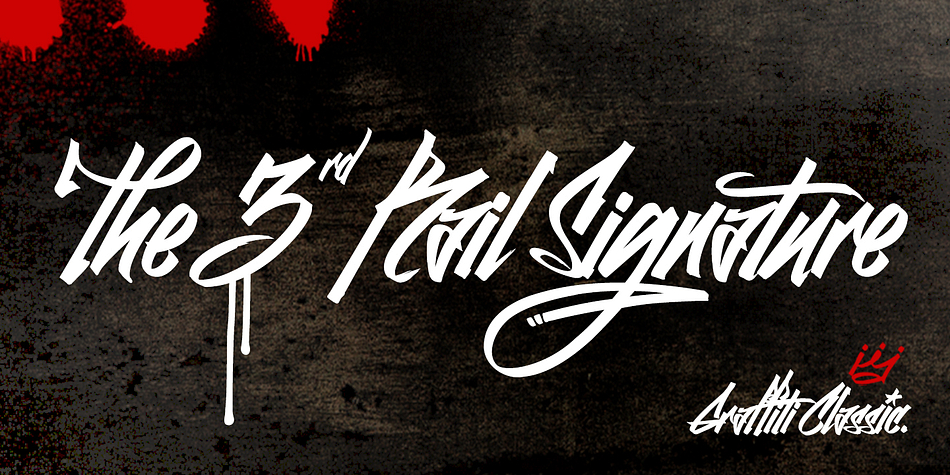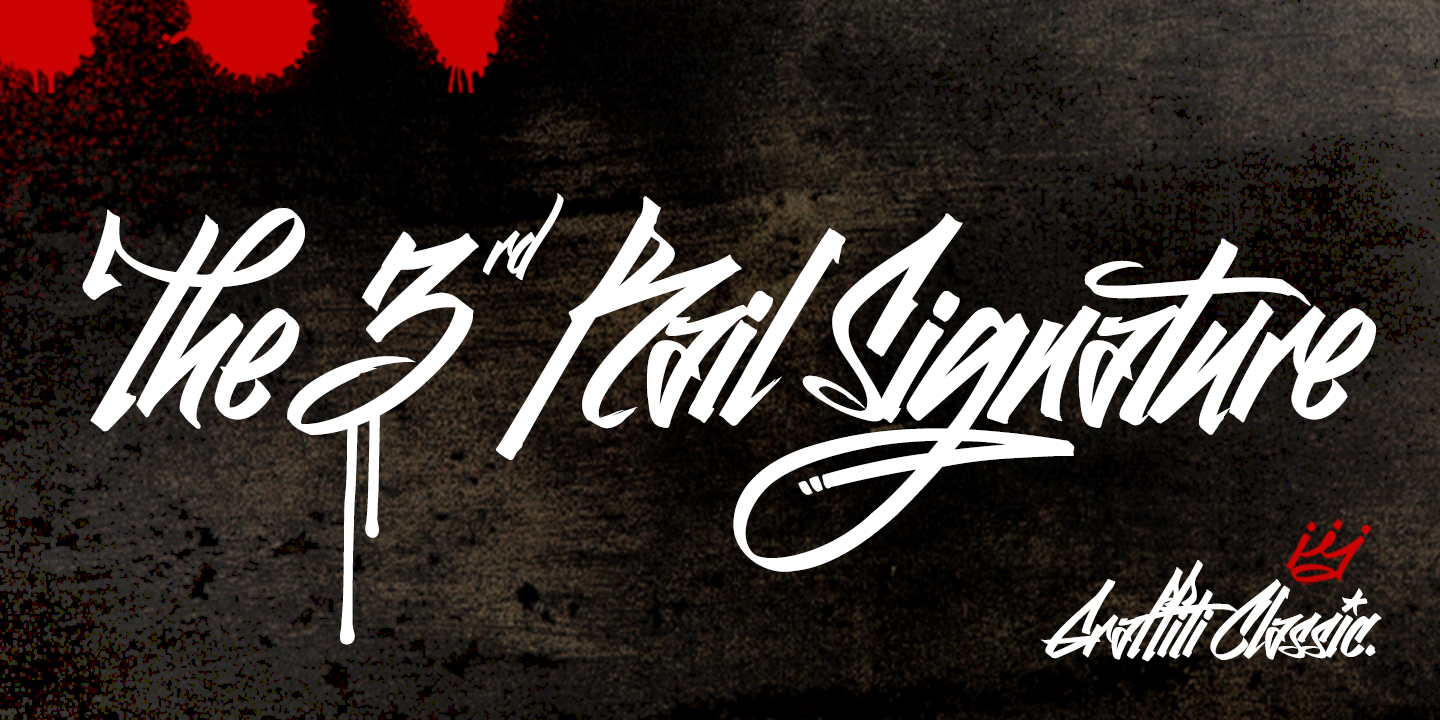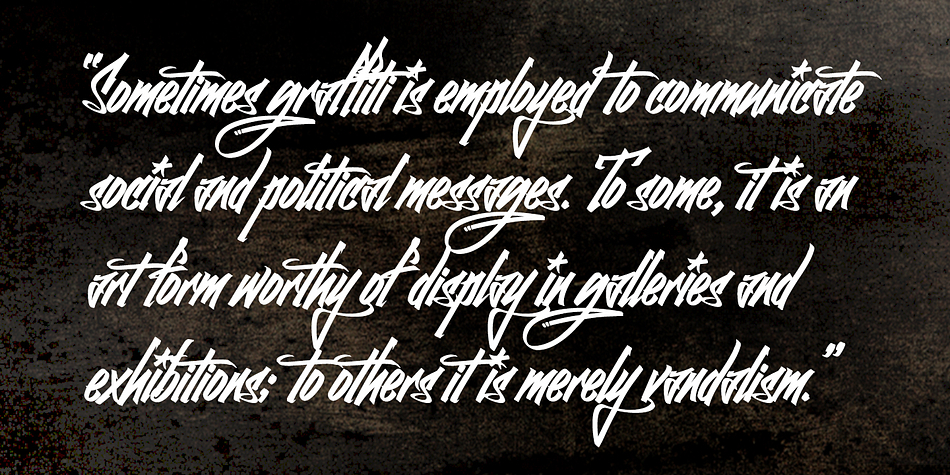
Designed by Robert Arnow, Graffiti Classic is a dingbat and brush display font family. This typeface has two styles and was published by Robert Arnow.
Growing up in Brooklyn, graffiti appeared to me as an explosion of expression and color in a sea of concrete. Inspired, I became a graffiti artist, and practiced in both notebooks and subway tunnels. While I moved on to somewhat more traditional art forms in future years, with Graffiti Classic I pay homage to my artistic roots in a calligraphy marker tag font.
Like my other fonts, the entire Graffiti Classic font is spaced letter to individual letter, so that the spacing will work smoothly, in spite of the expressiveness and irregularity of the forms.
The Graffiti Classic family also includes an ornaments font, “Taglets,” which has clouds, underlines, arrows, crowns, halos and more to add flavor to your designs.